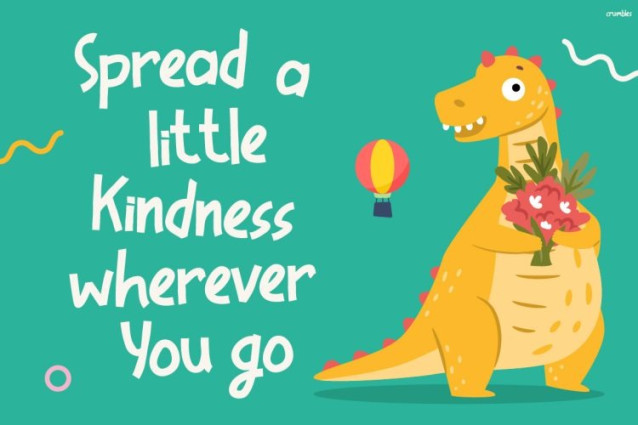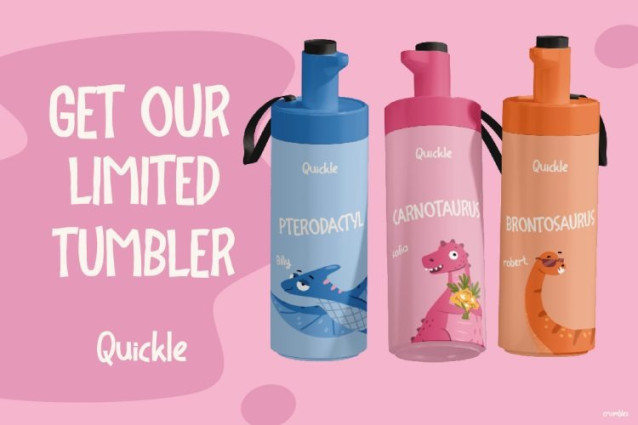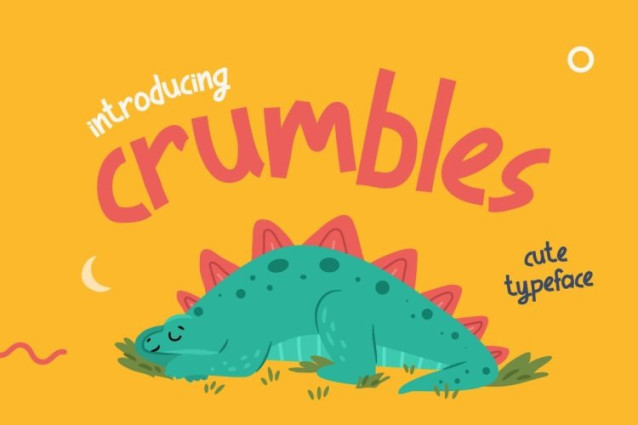
Crumbles Font
Crumbles Font is a cute typeface that brings instant smiles. It features adorable animal friends and soft handwritten letters. The wobbly, rounded shapes feel playful and warm. Moreover, lovable dinosaurs, frogs, and giraffes add extra charm. As a result, every design feels cozy and joyful. Furthermore, gentle curves create an inviting look. Vibrant colors boost its cheerful vibe. In addition, it stays highly readable at any size. Therefore, Crumbles works perfectly for quotes, promotions, and branding. The organic flow mimics a child’s happy doodles. Consequently, every word feels personal and fun. Plus, pastel backgrounds pair beautifully with its style.
Kids Font Crumbles is a hand-drawn cute typeface full of personality. It mixes uppercase and lowercase with fun animal illustrations. The slightly irregular edges mimic real handwriting. Furthermore, it shines in colorful layouts. For instance, kind messages pair with balloon dinos. Motivational words wrap around sweet creatures. Sales banners feature toy trains and playgrounds. Additionally, it livens up tumbler ads and book covers. Stacked animal titles look adorable. Large banners celebrate special days with ease. Moreover, outdoor signage gains a welcoming touch. Product mockups feel lively and fresh. Greeting cards become heartfelt keepsakes. In addition, social media graphics spread positivity quickly. Overall, Crumbles adds fresh, heartwarming energy. Consequently, every project feels playful and polished. Therefore, the font’s versatility spans digital screens and printed materials seamlessly.
This font delights graphic designers who love kid-centric visuals. Educators use it for fun worksheets, posters, and flashcards. Marketers choose it for family brands, toy campaigns, and events. In addition, parents create sweet birthday cards, invitations, and signage. Bookstores and cafes make displays and menus more welcoming. Children’s authors add handmade charm to covers and pages. Social media creators craft viral, feel-good posts. Party planners build themed worlds quickly. Furthermore, kindergarten teachers brighten classroom walls daily. Nursery decorators design dreamy spaces effortlessly. Small toy shops refresh logos and labels with joy. Bloggers share uplifting content that stands out. Therefore, anyone spreading happiness through design loves its gentle magic.